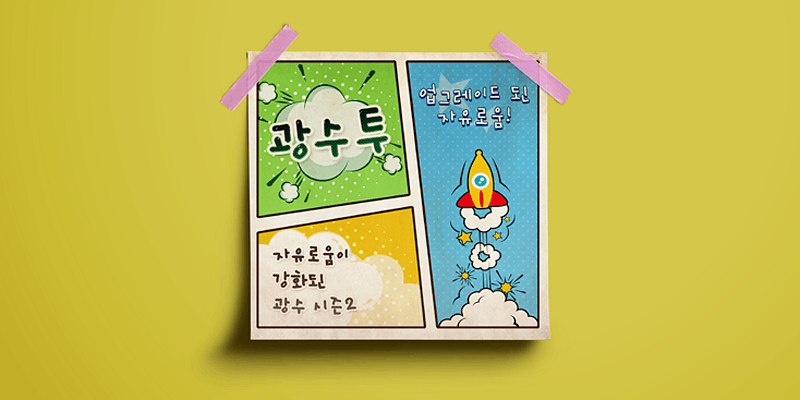
Sandoll KwangsooTwo is a free-flowing style of the existing Kwang Soo font.
It more highly emphasizes Park Kwang Soo’s handwriting, accentuating a more free-spirited and free-flowing sensation. You could say that fans of the existing Kwang Soo font now have a new font to fall in love with.